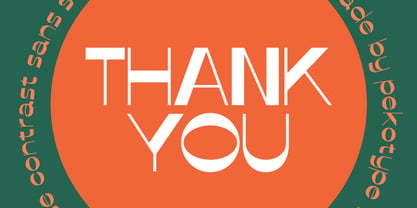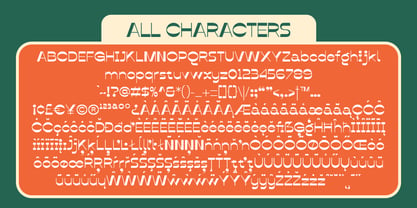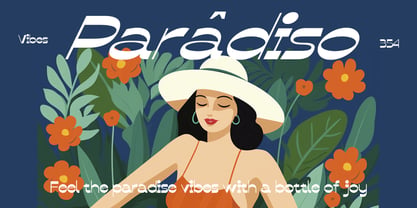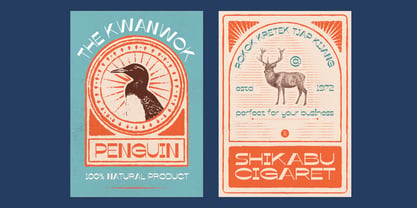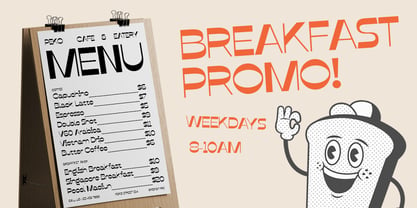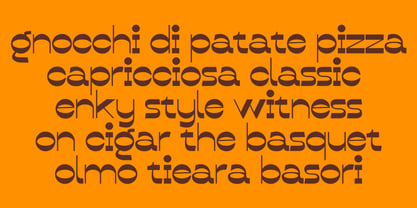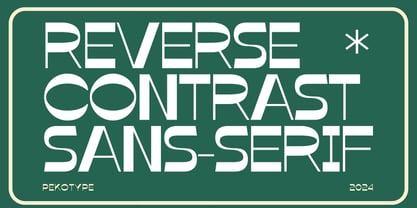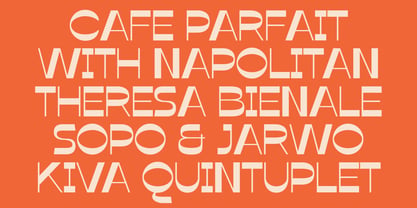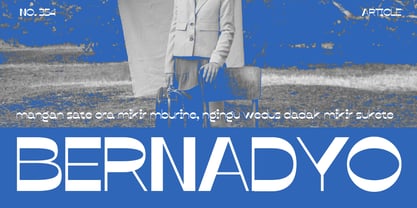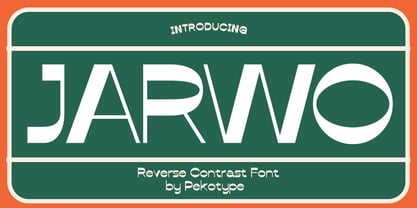
Jarwo
by Pekotype
The Jarwo Font Family was designed by Galang Bryan and published by Pekotype. Jarwo contains 1 styles. More about this family
Meet JARWO, the bold typeface that flips the script with its reverse contrast and retro vibes! Perfect for designers who crave something different, JARWO brings a fresh vintage twist to any project. Whether you're creating standout logos, branding, packaging, or setting the mood in a café, this font commands attention. Its unique blend of old-school charm and modern edge makes every design pop. If you're ready to elevate your style with a typeface that oozes character and originality, JARWO is your go-to choice!
Designers: Galang Bryan
Foundry: Pekotype